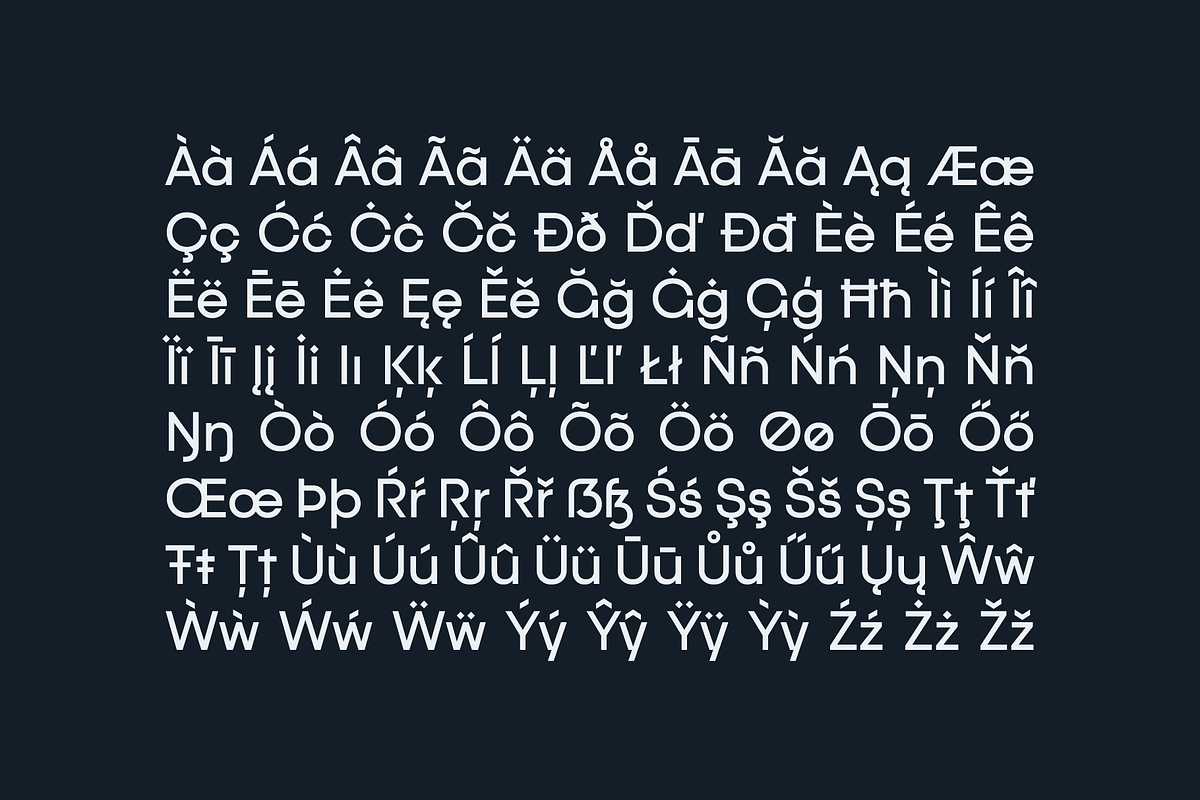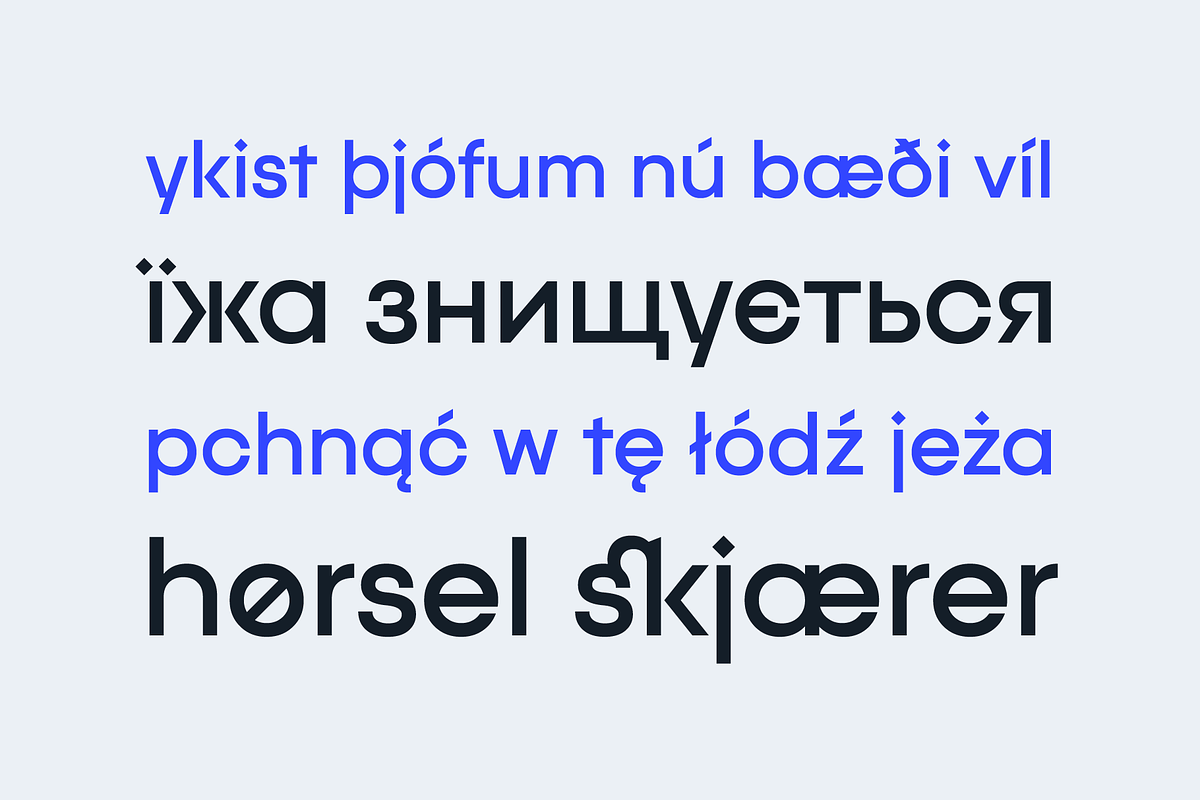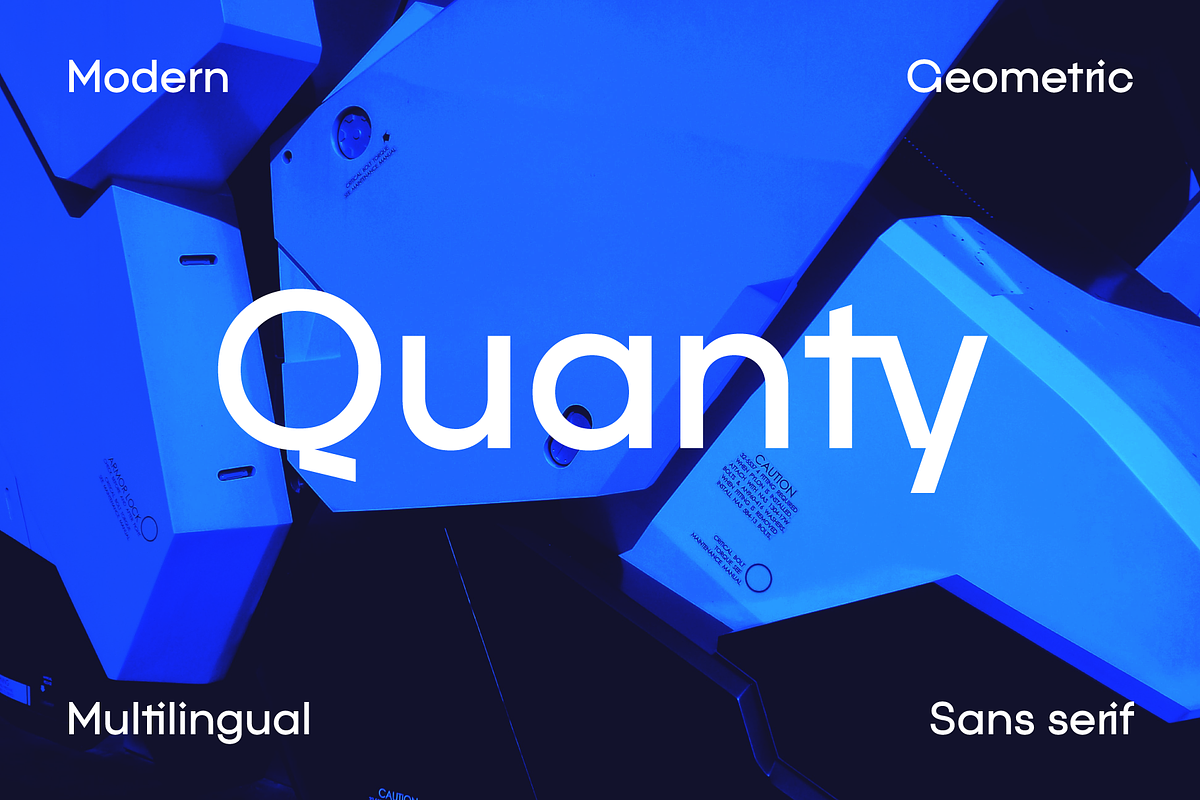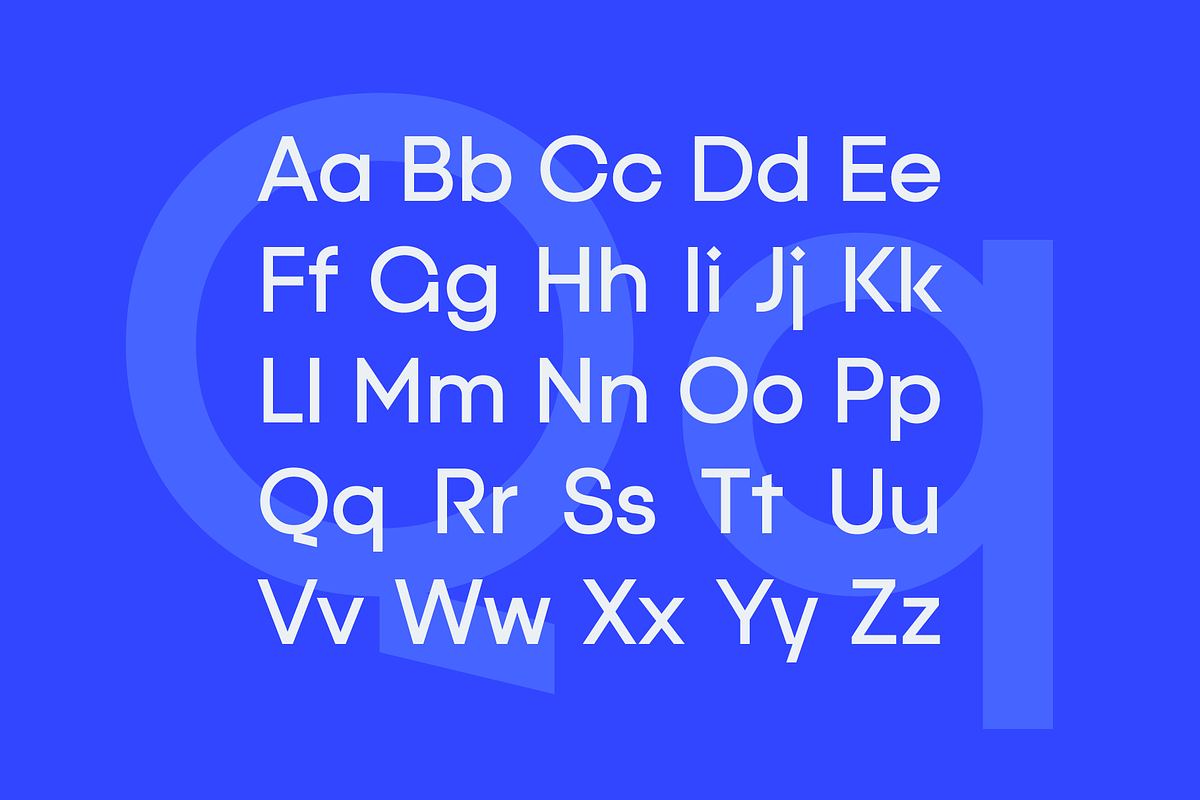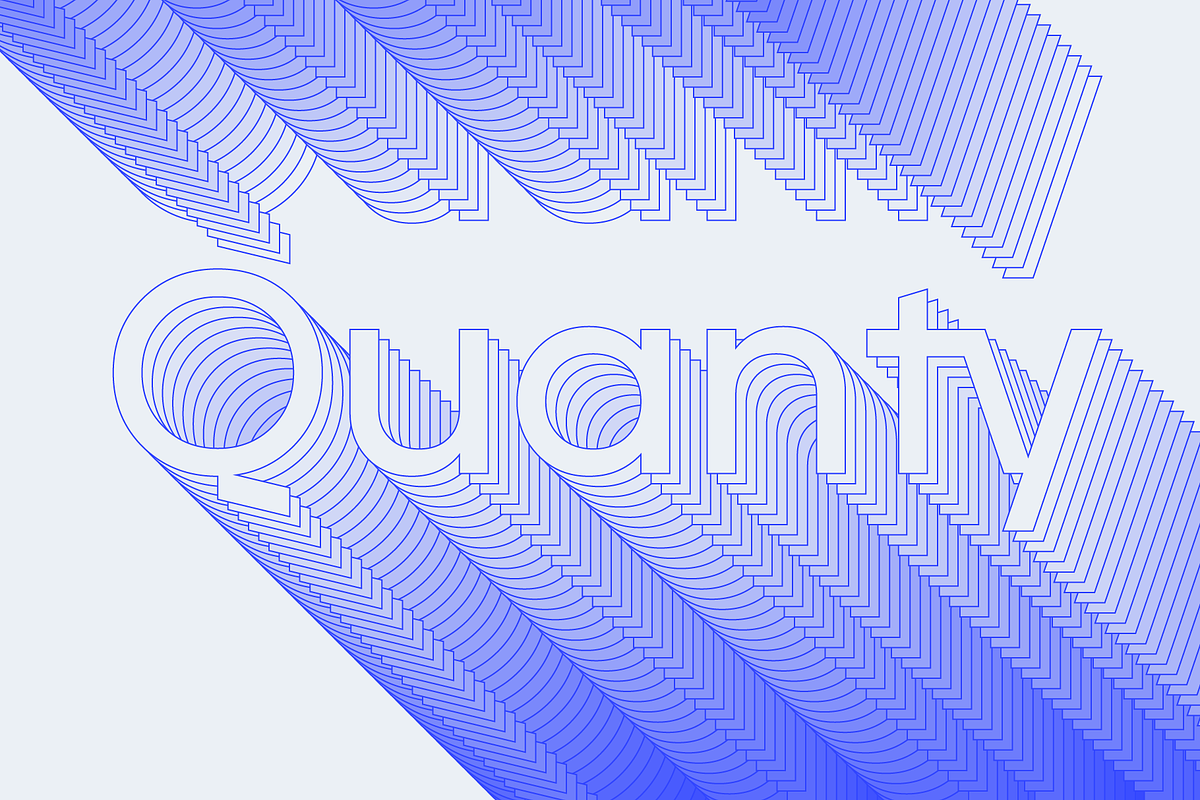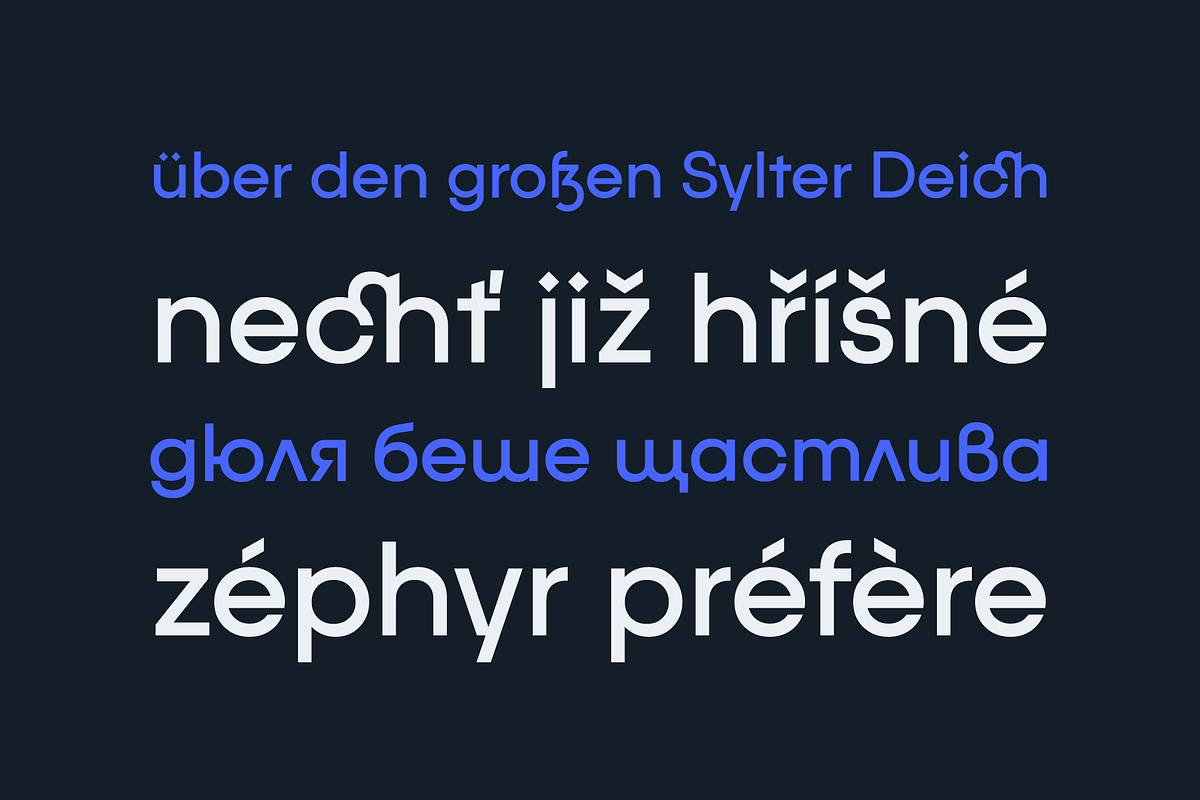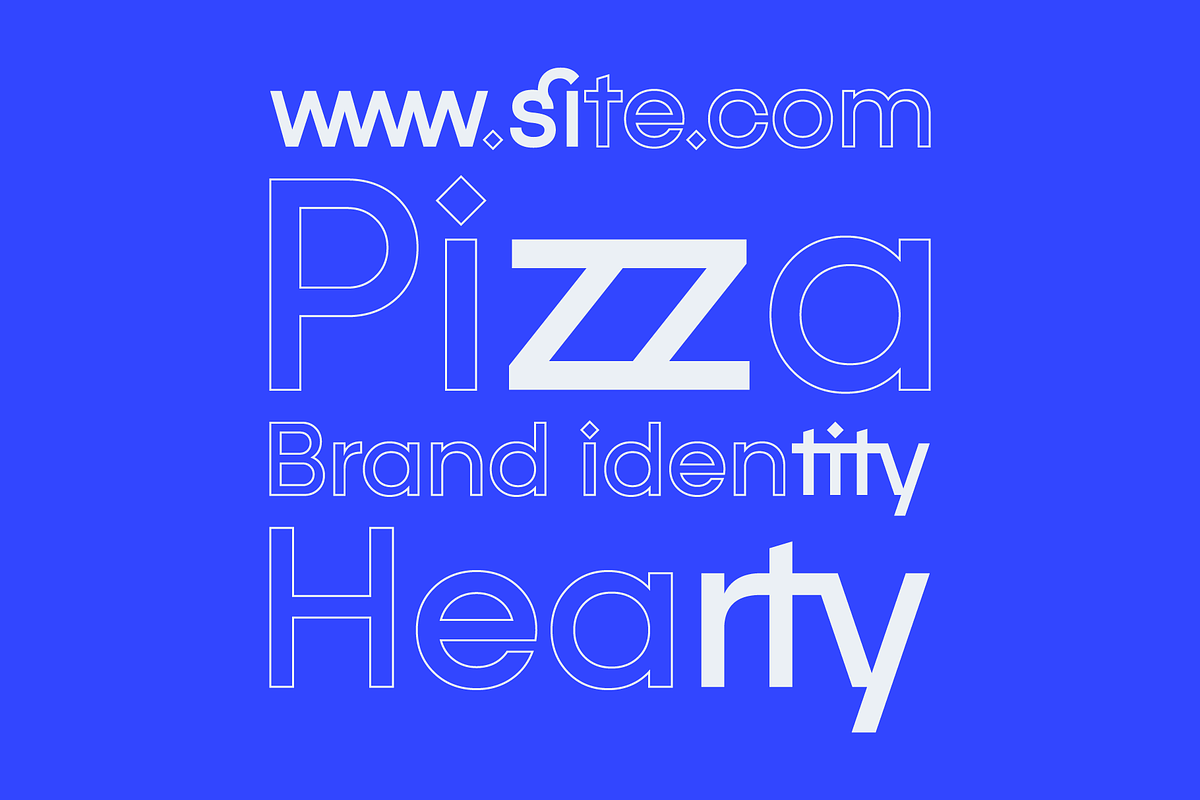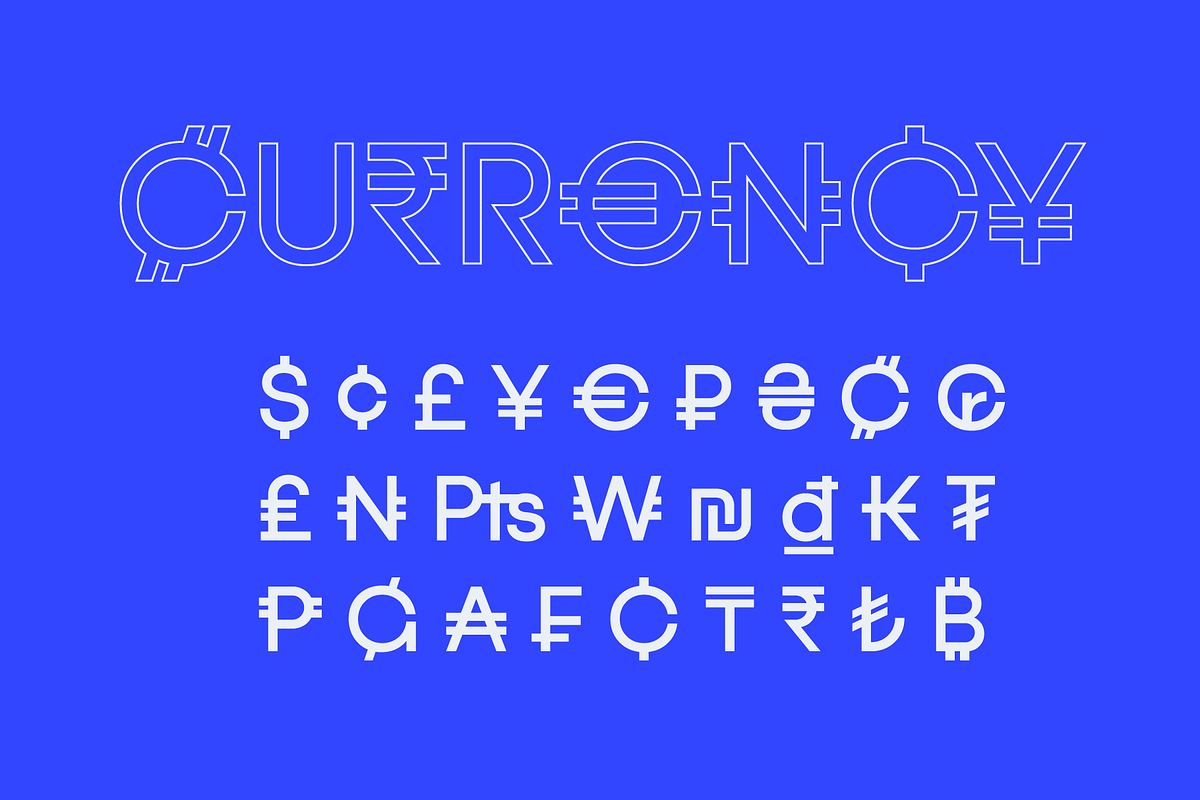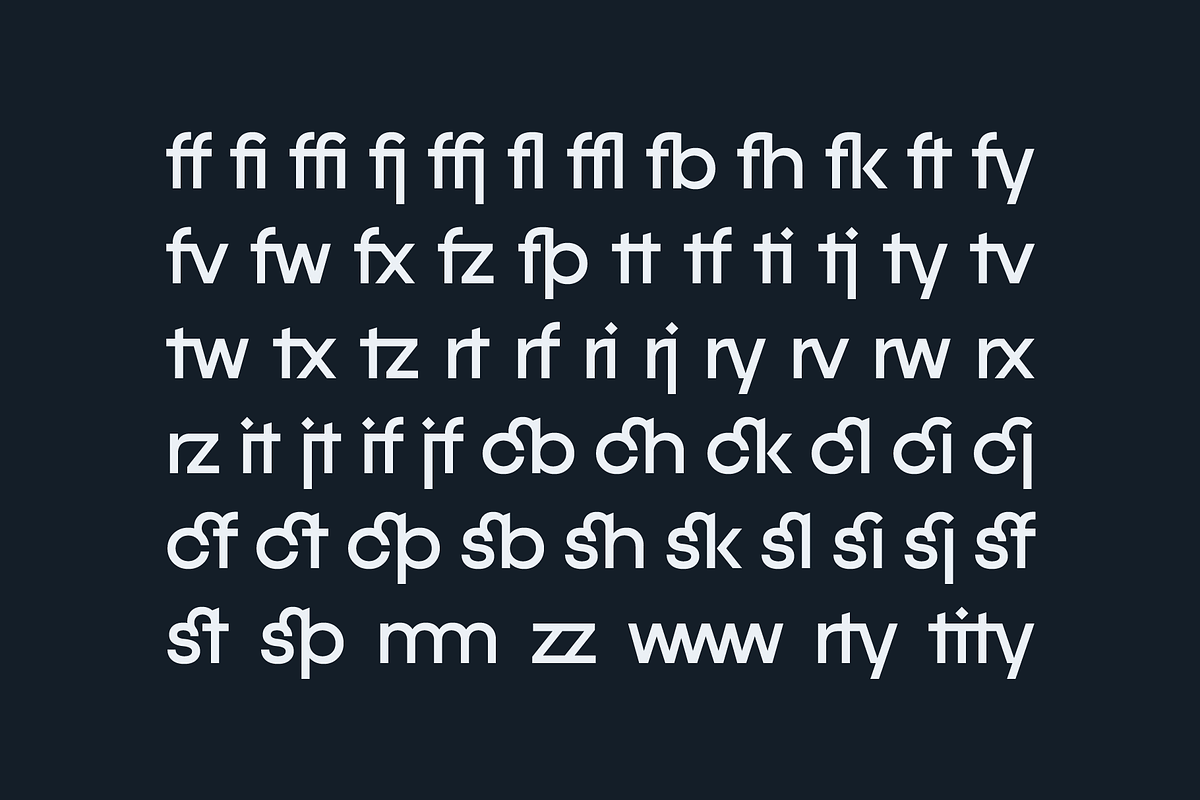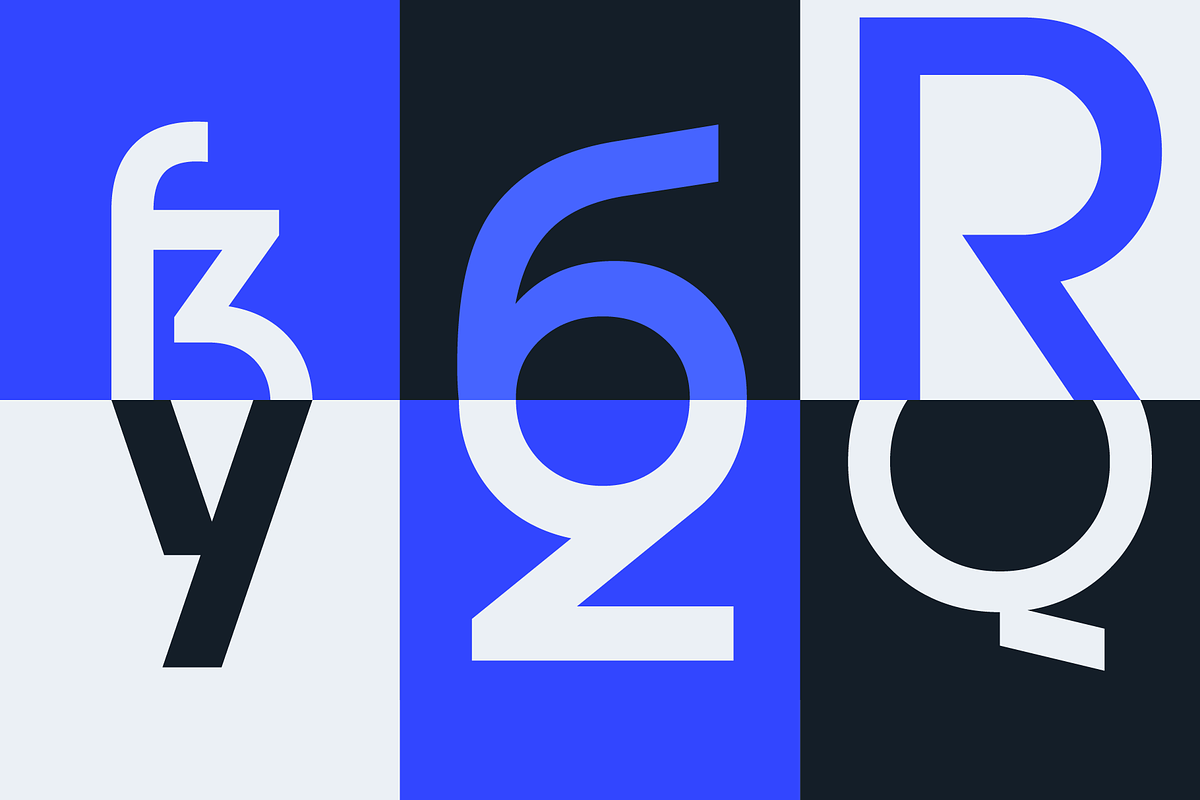
Quanty — geometric sans serif
Quanty is a modern geometric sans serif that combines a clean, minimalist construction with distinctive display details. Its restrained geometry gives the typeface a precise and contemporary foundation, while its characteristic forms and carefully designed details give it a more individual visual voice.
Designed for modern graphic design, Quanty works particularly well for branding, logos, headlines, posters, advertising, packaging, editorial design, websites, presentations, and other applications where clean typography needs a distinctive edge.
The typeface was created as a versatile display-oriented sans serif that can remain controlled and functional without becoming generic. Its geometric structure makes it easy to integrate into identity systems, while its unusual details allow designers to add personality where standard geometric sans serifs might feel too familiar.
Quanty contains 643 glyphs and supports Latin and Cyrillic scripts with broad multilingual coverage. Its OpenType features include standard and discretionary ligatures, Romanian and Bulgarian localized forms, fractions, numerator and denominator figures, superscript and subscript figures, monospaced figures, and case-sensitive forms.
Quanty's combination of minimal geometry, sharp construction, distinctive details, and extensive OpenType functionality makes it a strong choice for designers looking for a clean sans serif with a recognizable visual signature.